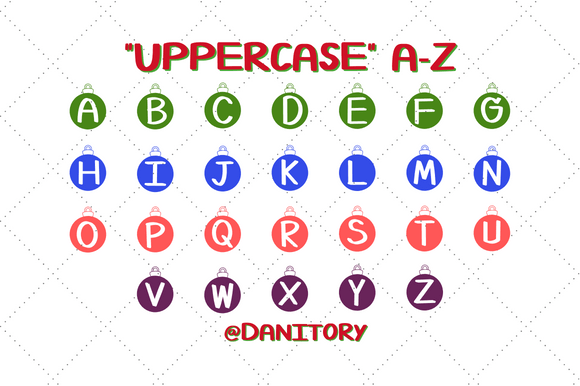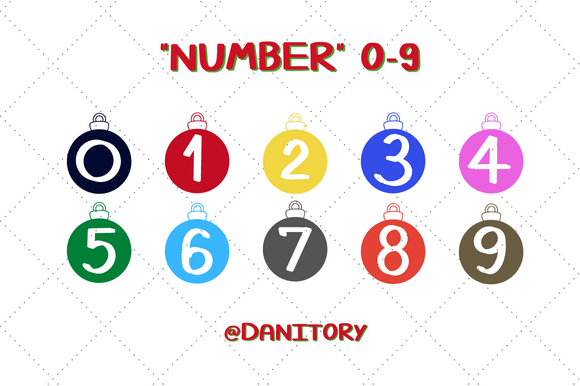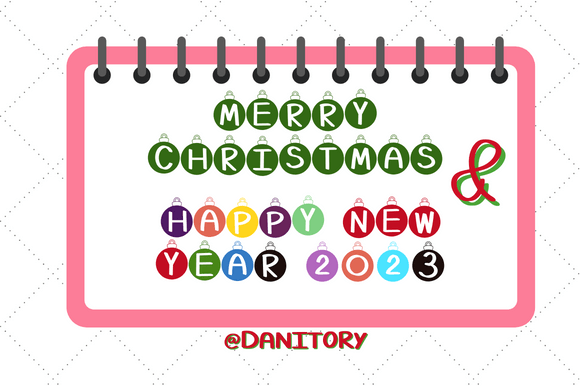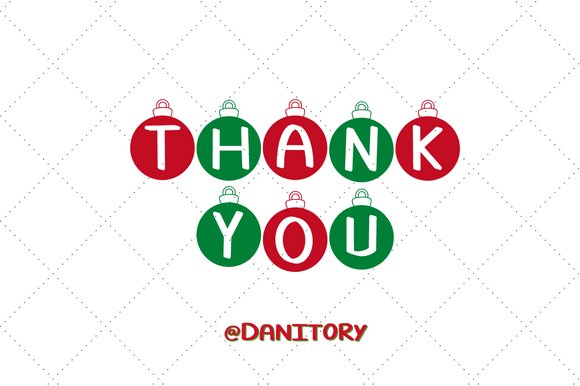
The Magic of Christmas Balls Font: A Designer’s Delight
It’s that time of the year again – the season of joy, giving, and of course, designing for Christmas. I still remember the year I was tasked with creating a festive branding campaign for a client, only to realize I had no font that screamed Christmas. The usual suspects – Arial, Helvetica, and Times New Roman – just wouldn’t cut it. That’s when I stumbled upon Christmas Balls Font, and my design woes disappeared like magic ✨.
An Honest Review: The Good, the Bad, and the Quirky
- ✨ Unique and festive design that’s perfect for Christmas-themed projects
- 🎉 Supports OpenType features, glyphs, and stylistic alternates for added creativity
- 🔥 Great for branding projects, logos, t-shirt printing, and greeting cards
- 🤔 Limited character set, which might not be suitable for projects requiring a wide range of characters
- ⚠️ May not be the best choice for body text or lengthy content due to its display nature
The Story Behind Christmas Balls Font:
Christmas Balls Font was designed with the holiday season in mind. The creator, a passionate typographer, wanted to craft a font that captured the essence of Christmas – fun, festive, and playful. Inspired by traditional Christmas ornaments, the font features a unique blend of rounded shapes and bold lines, making it perfect for creating eye-catching designs.
| What type of projects is Christmas Balls Font best suited for? | Christmas Balls Font is ideal for branding projects, logos, t-shirt printing, greeting cards, and any design that requires a festive and playful touch. |
| Is Christmas Balls Font suitable for body text? | No, Christmas Balls Font is a display font and is best used for headlines, titles, and short text. |
| Does Christmas Balls Font support OpenType features? | Yes, Christmas Balls Font supports OpenType features, glyphs, and stylistic alternates, allowing for added creativity and customization. |
| Font Name | Christmas Balls Font |